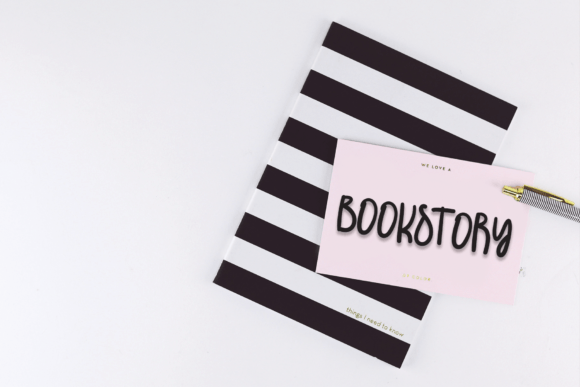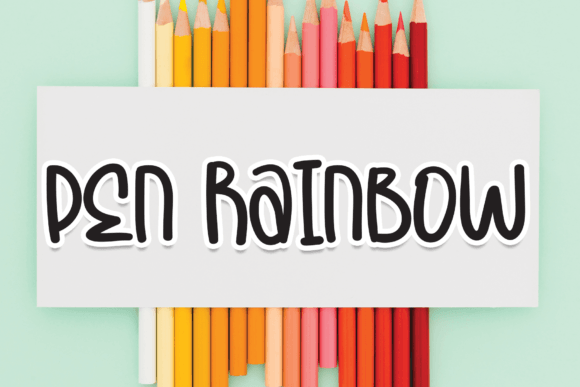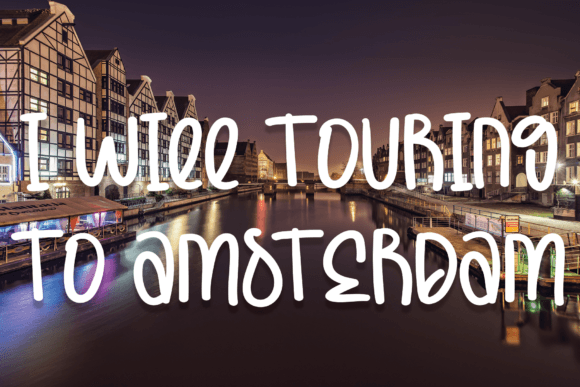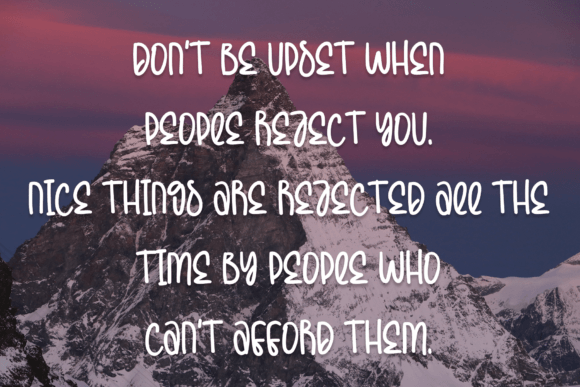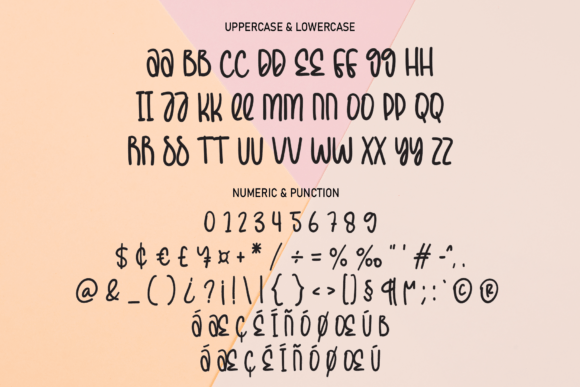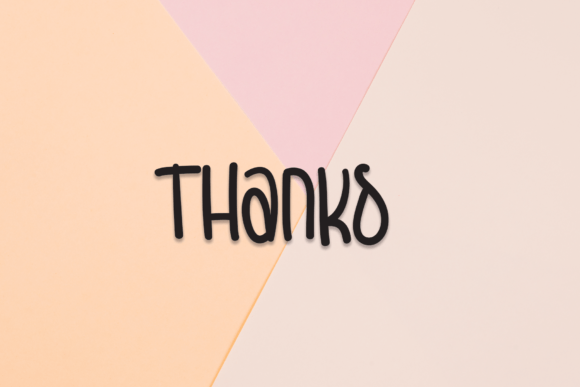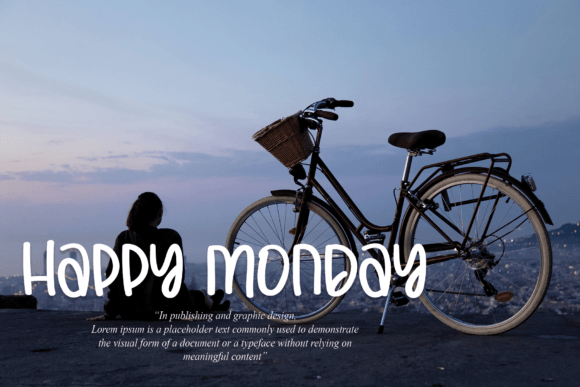
Simple and Humble Font
About Simple and Humble Handwritten Font
Simple and Humble Handwritten Font is an elegant script typeface that brings a personal and refined touch to your projects. Its flowing strokes and carefully balanced proportions capture the beauty of handcrafted calligraphy while maintaining a modern style. Because of its versatility, Simple and Humble Handwritten Font is perfect for invitations, logos, labels, posters, packaging, and social media graphics.
A Handwritten Typeface with Grace
Handwritten fonts always add a unique personality to designs, and Simple and Humble Handwritten Font does this with perfection. Its strokes are smooth and elegant, neither too thin nor too thick, which makes it highly adaptable to different creative contexts. In addition, its polished look ensures readability while enhancing visual appeal.
Perfect Typeface for Invitations and Stationery
Special projects such as weddings and celebrations require fonts with charm, and Simple and Humble HandwrittenFont fits this need seamlessly. For example, it elevates wedding invitations, menus, and thank-you notes into beautiful keepsakes. Moreover, it enhances seasonal greeting cards, birthday messages, and festive stationery, making each piece feel authentic and personal.
A Script Typeface for Branding and Packaging
Businesses and designers can rely on Simple and Humble HandwrittenFont for branding and packaging. It enriches boutique logos, product labels, and promotional campaigns with sophistication. Furthermore, it adapts easily to advertising layouts, magazine covers, and digital promotions. When paired with minimalist sans serif fonts, it creates a balanced and professional impression.
Flexible Across Print and Digital Media
Another strength of Simple and Humble HandwrittenFont is its adaptability. In print, it shines on brochures, posters, and merchandise. Digitally, it integrates perfectly into blogs, websites, and online shops. Since it scales clearly from small details to large banners, it delivers consistent quality across all platforms.